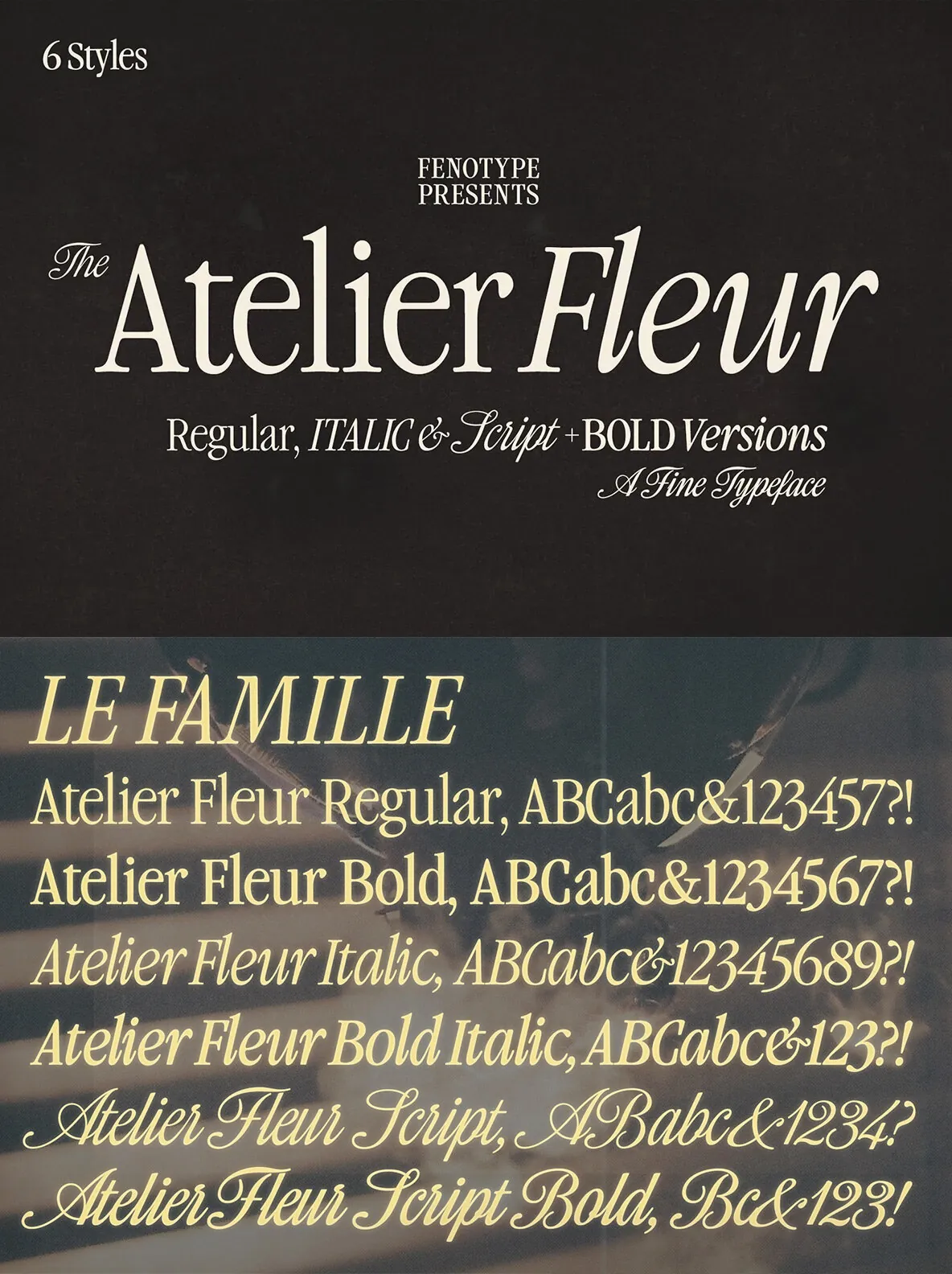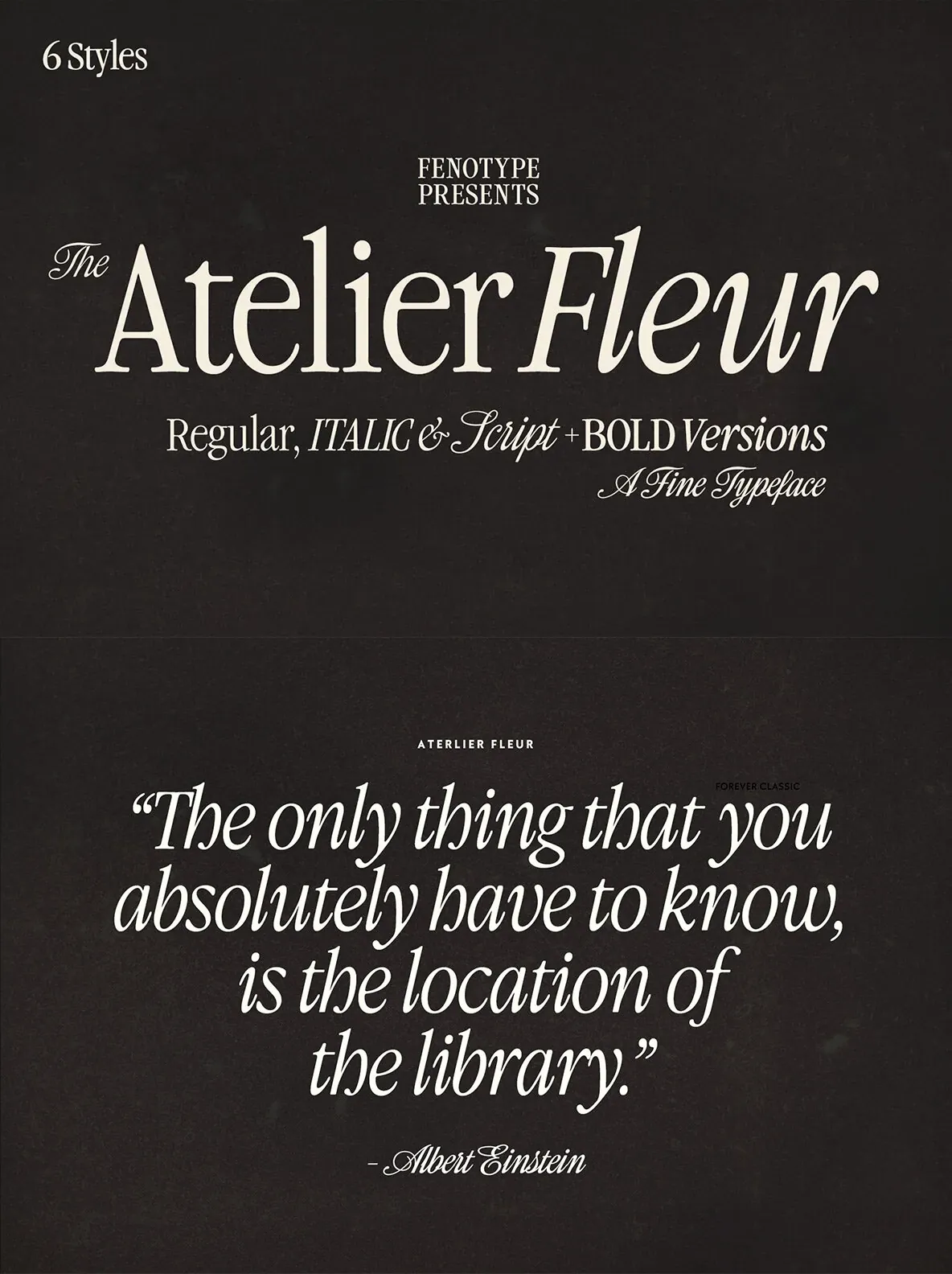
Atelier Fleur — Condensed Garamond Poise
Atelier Fleur draws clear inspiration from the timeless Garamond. It presents a condensed serif family that balances elegance with versatility. The collection includes Serif, Italic, and Script styles, each available in Regular and Bold weights. It is tailored for editorial and display applications where tone and detail matter.
Designed to excel in headlines, editorial highlights, branding, and advertising, Atelier Fleur brings a refined aesthetic to sophisticated digital and print projects. The Script style pairs cleanly with the serif variants, yet it also holds its own as a sturdy display script. This makes the family flexible for identity systems, campaigns, and expressive typographic layouts.
Comprehensive OpenType functionality for typographic precision
Alternate characters accessible via Swash, Stylistic Alternates, Titling Alternates, and multiple Stylistic Sets, particularly in Script and Italic forms
Decorative pen stroke elements in the Script style, accessible through Stylistic Set 1 and mapped to numerals (0–9)